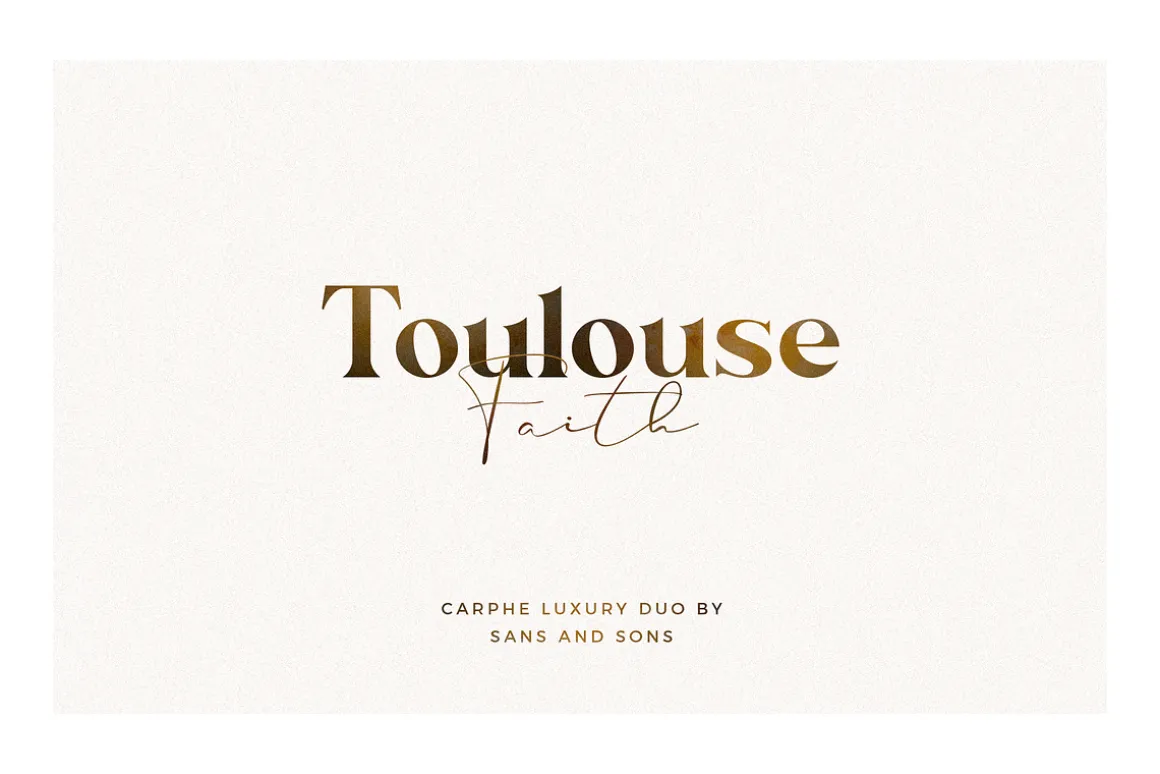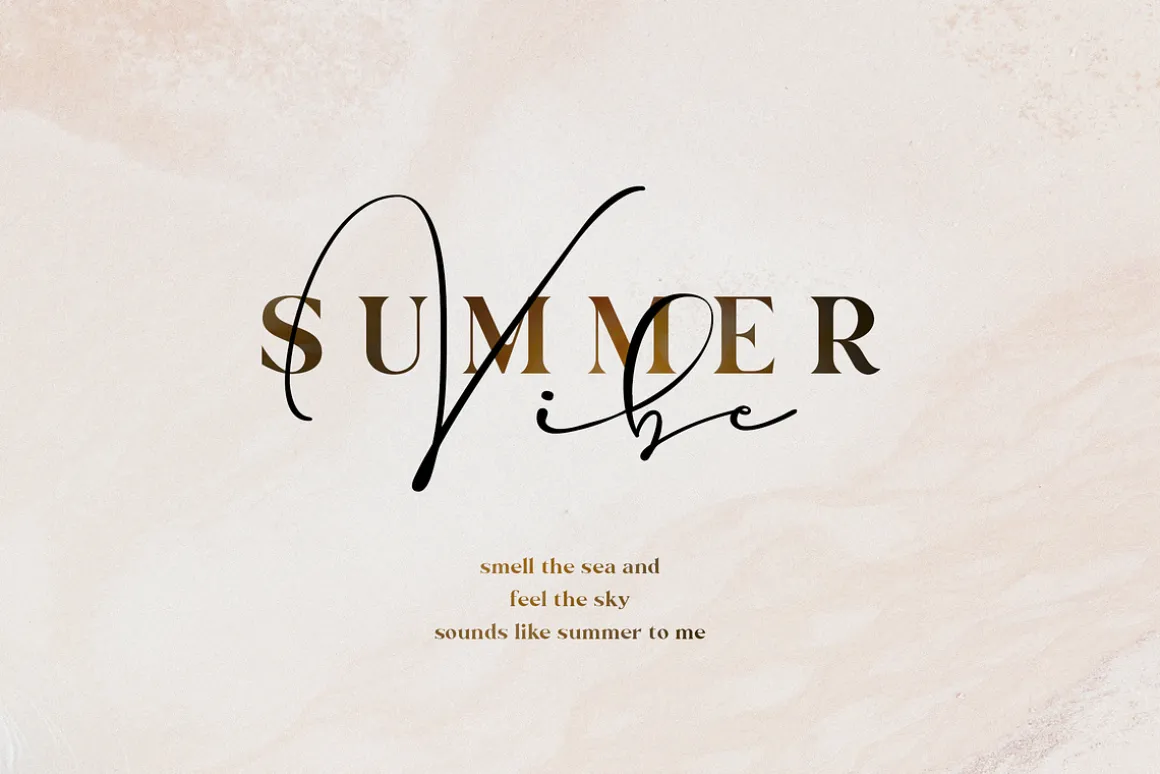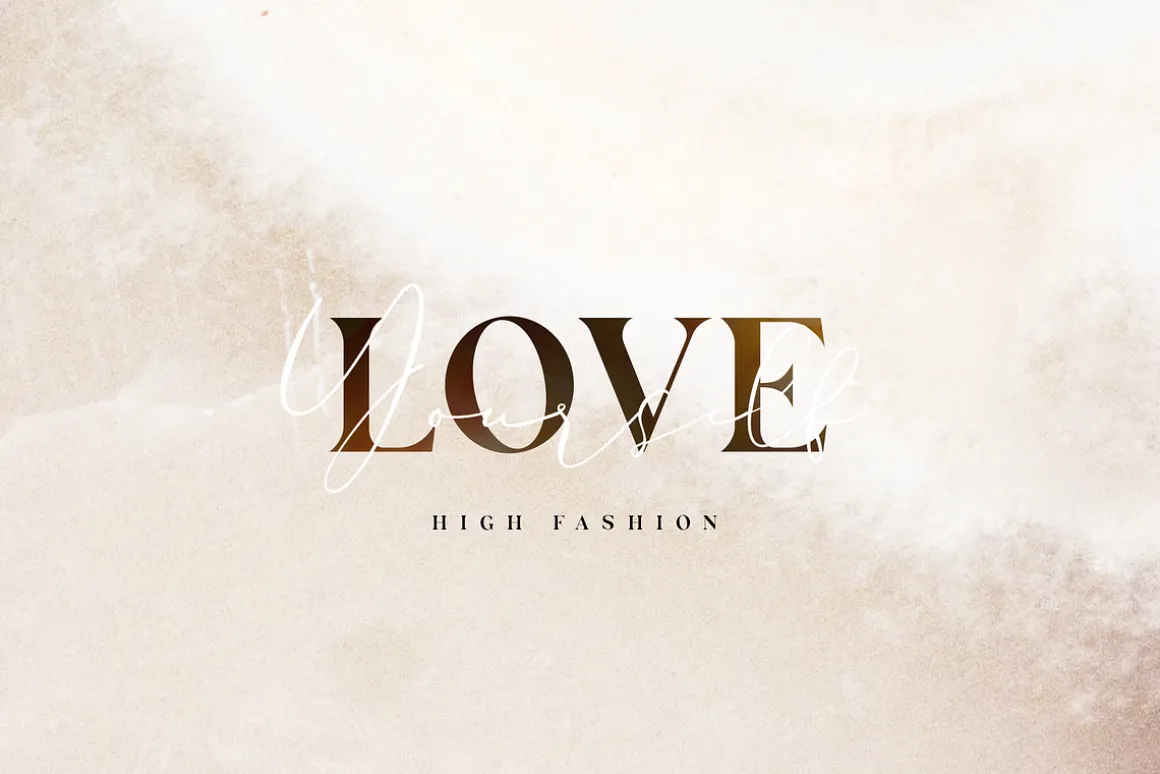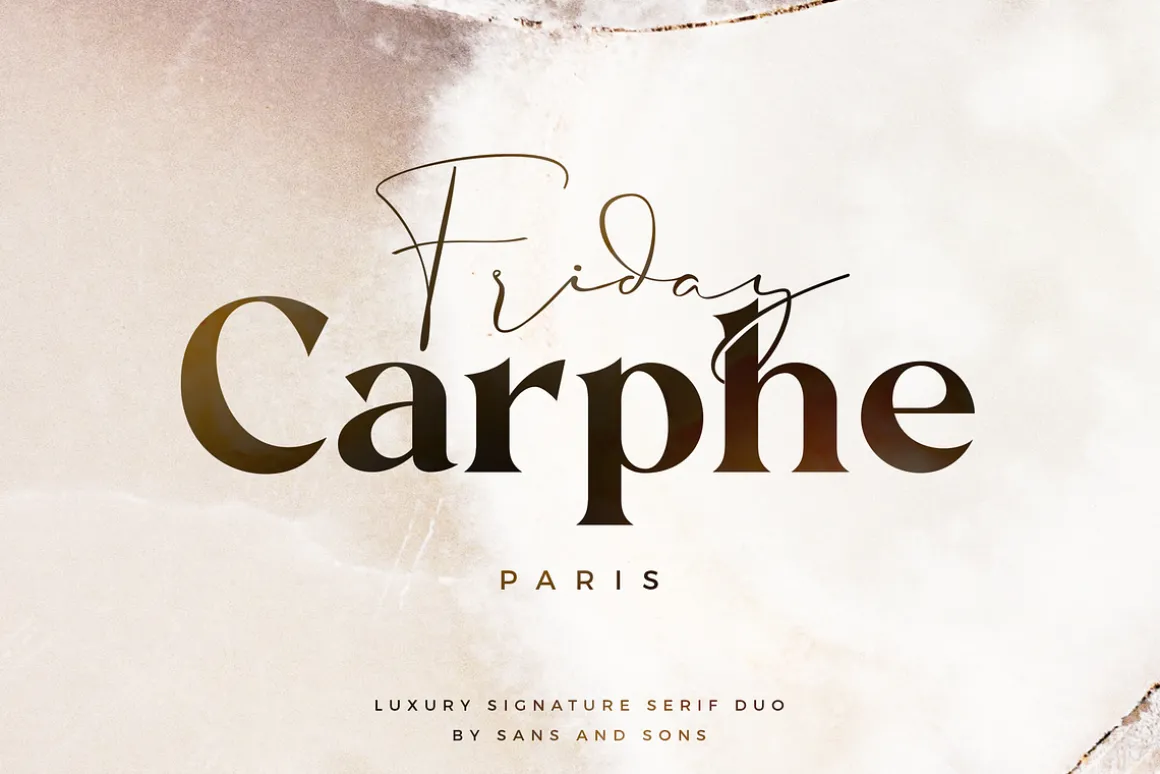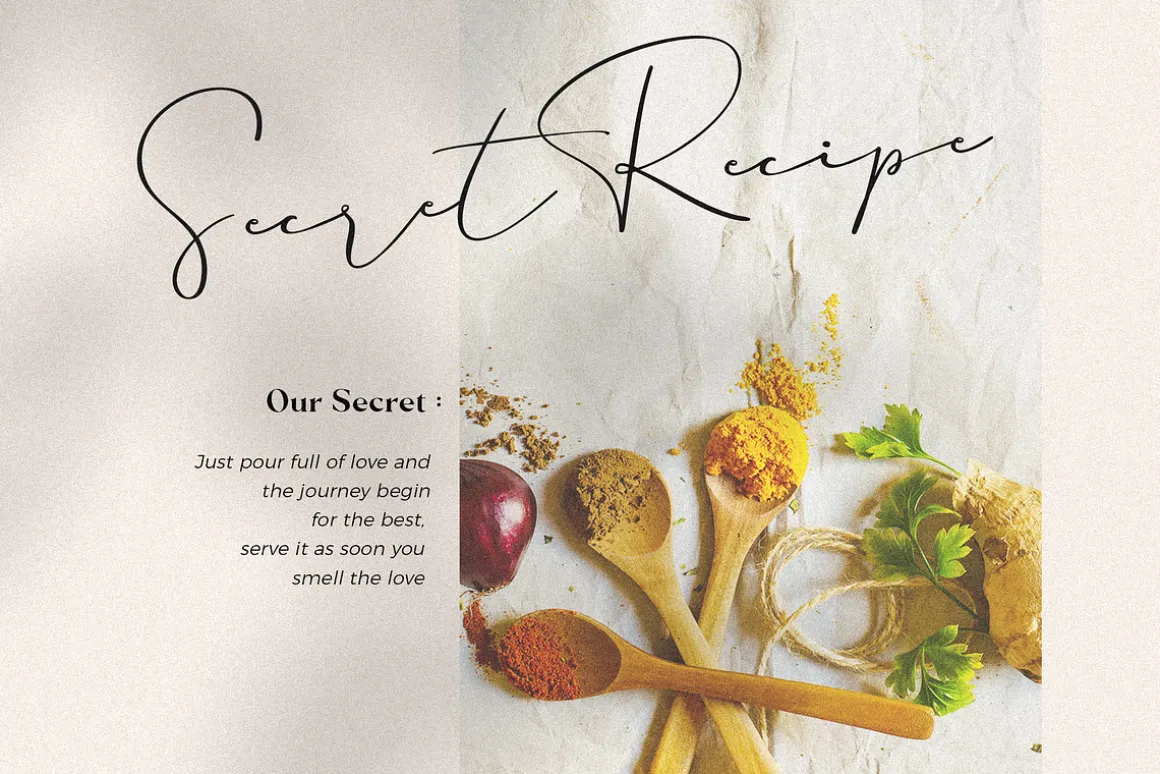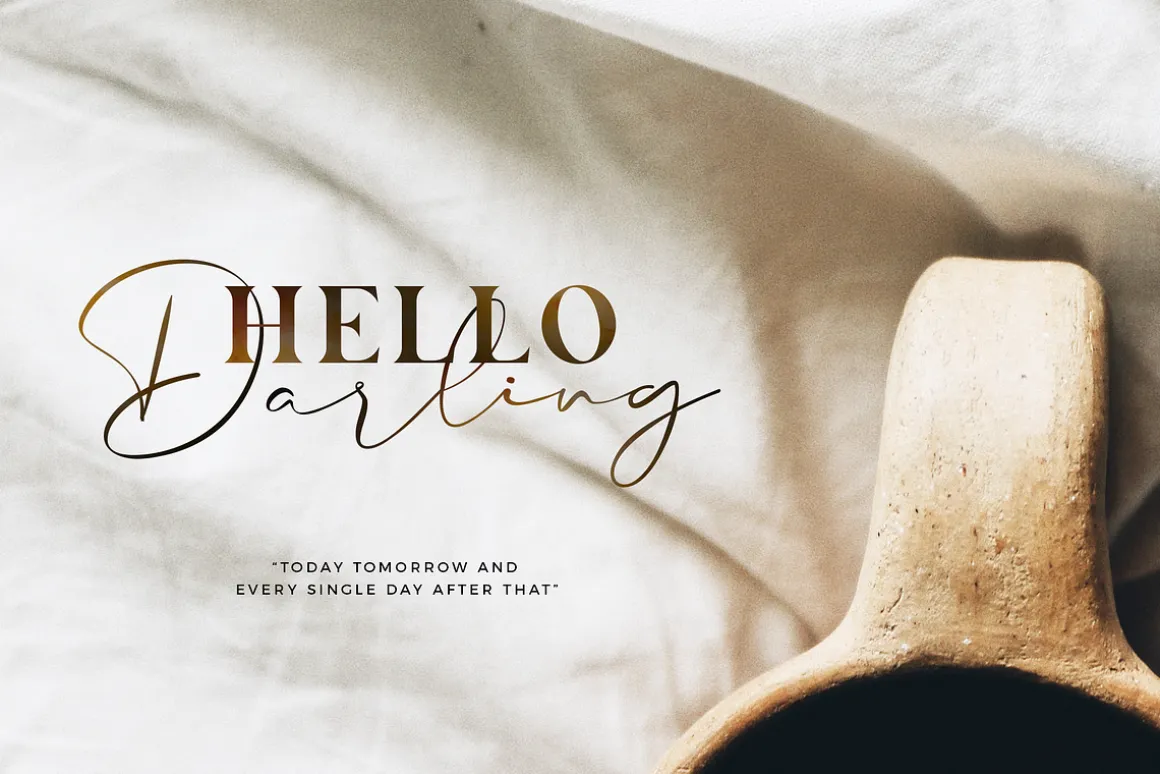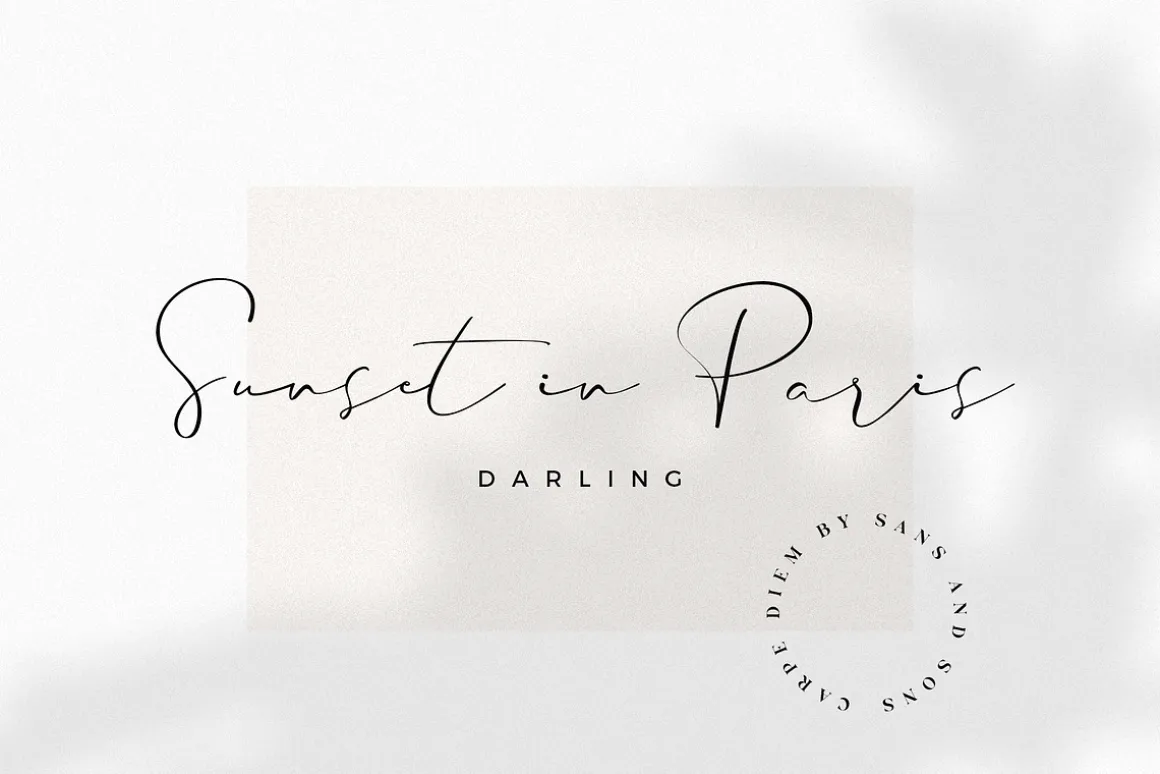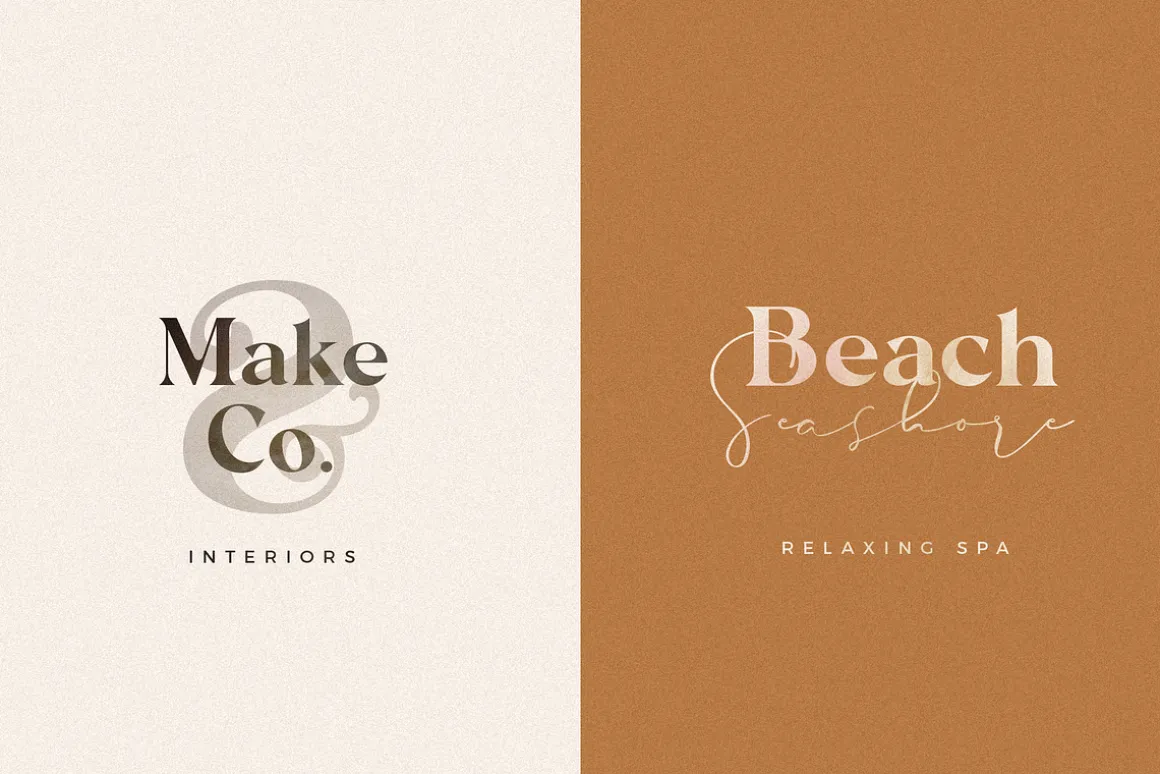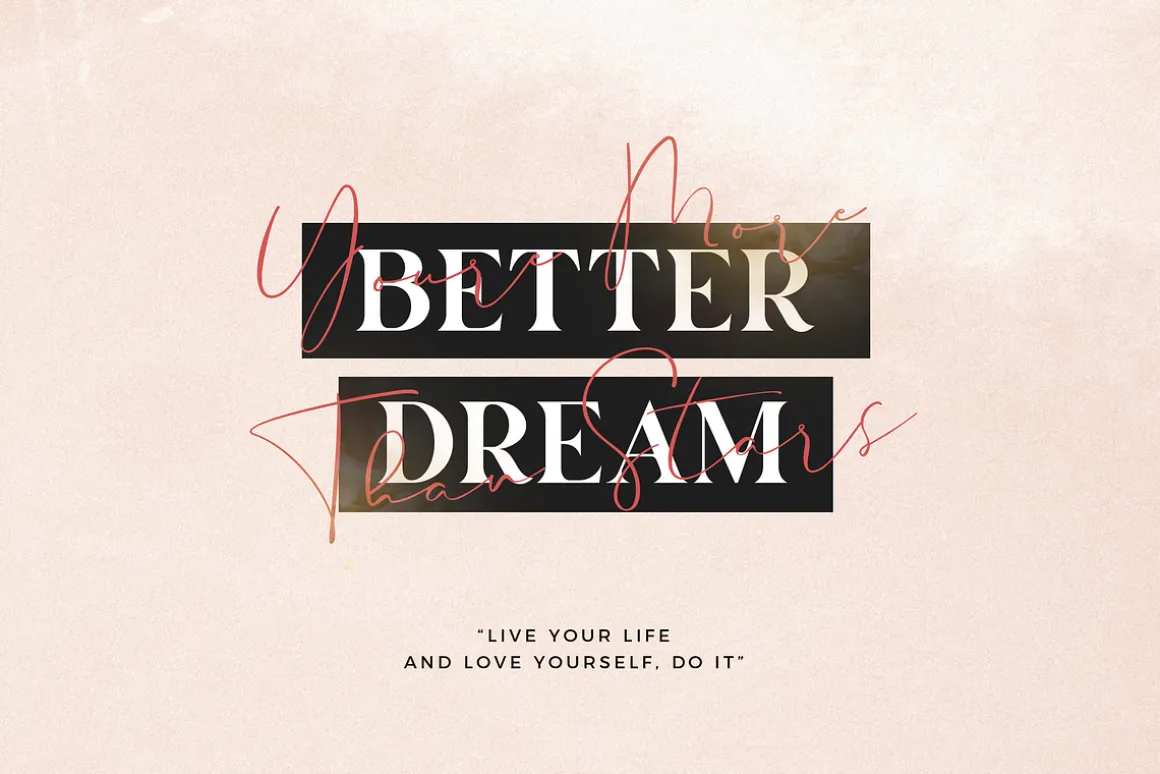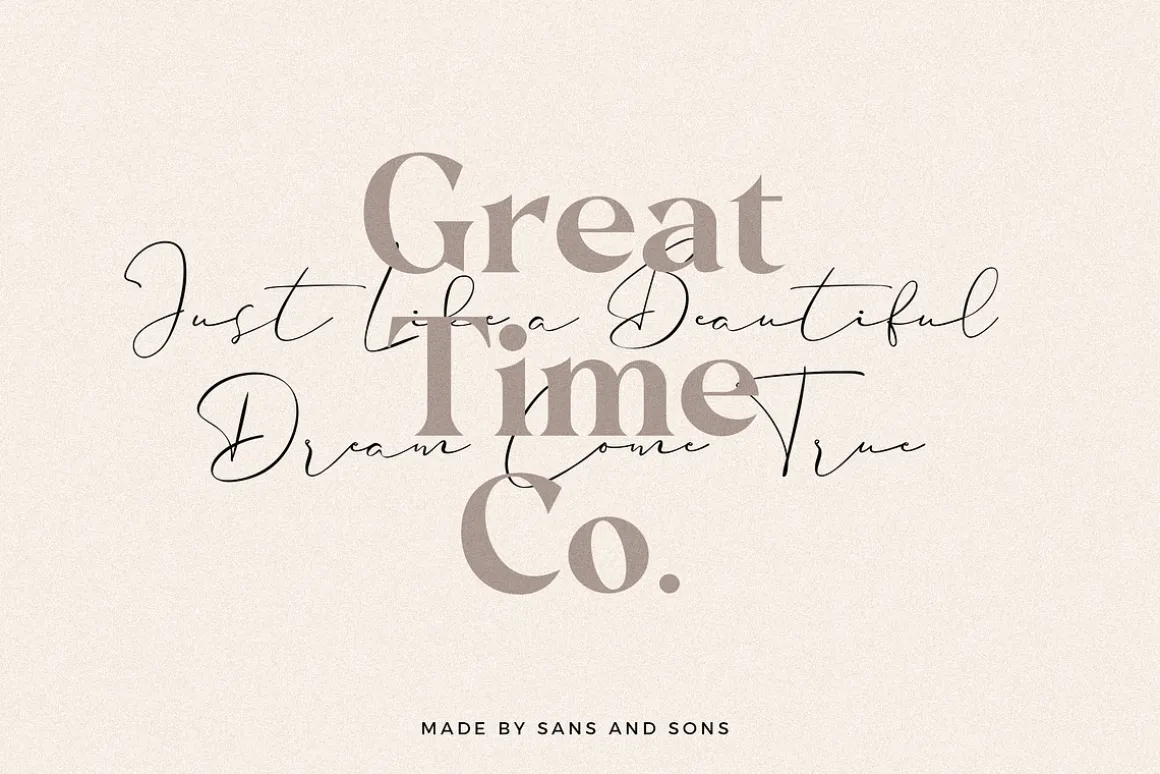
Carphe – Luxury Signature Serif Duo by Sans and Sons
introducing our new “Carphe” font duo with Modern Luxury Style this is perfect for branding, logos, invitation, masterheads and more.